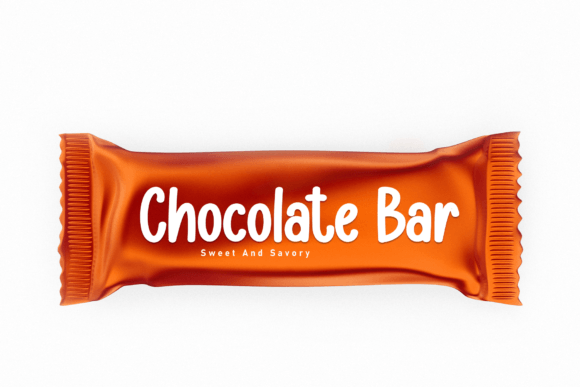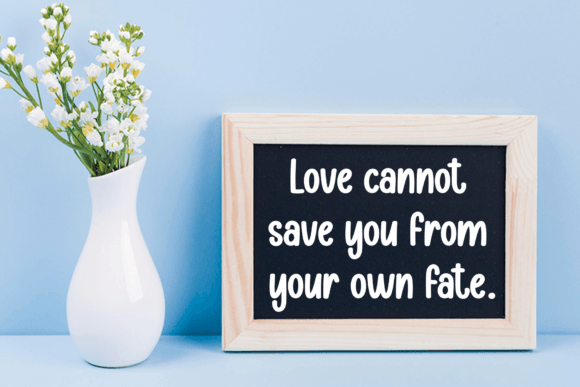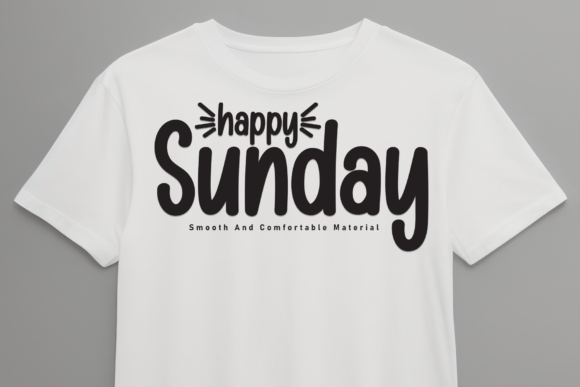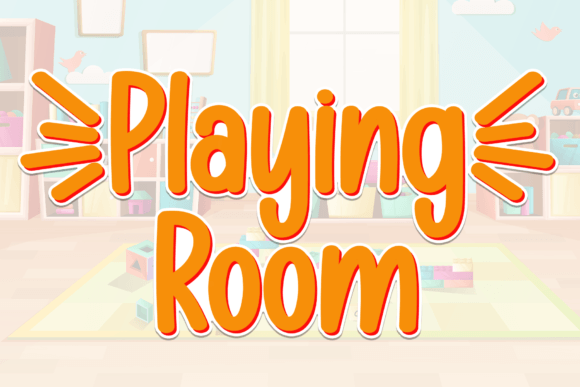
Introduction to Playing Room Font
Playing Room is a lovely and timeless handwritten font.
Why Choose Playing Room Font?
Playing Room Font offers exceptional quality and versatility, making it a valuable addition to your design toolkit. Whether you’re creating for personal projects or commercial use, Playing Room Font delivers professional results.